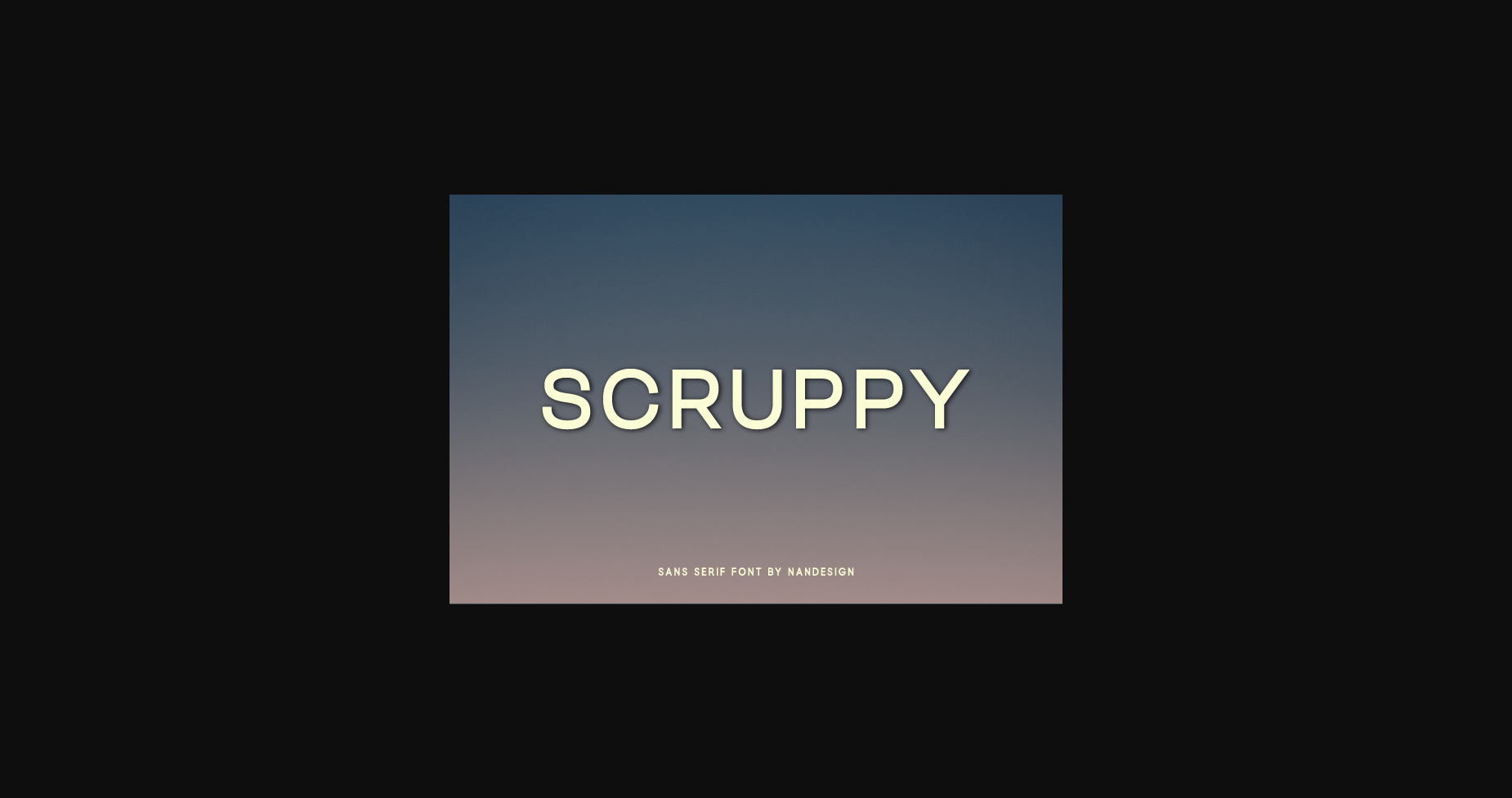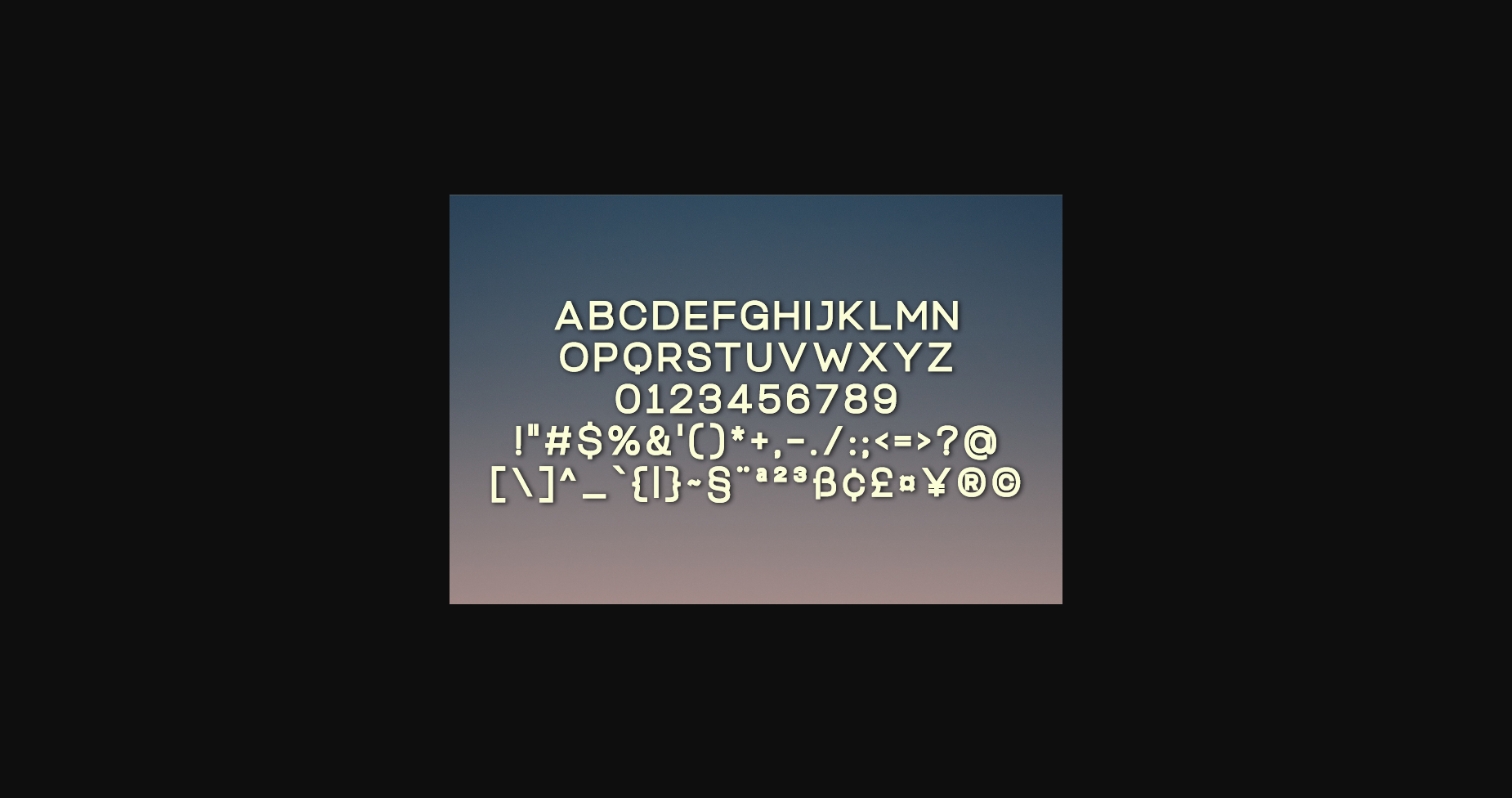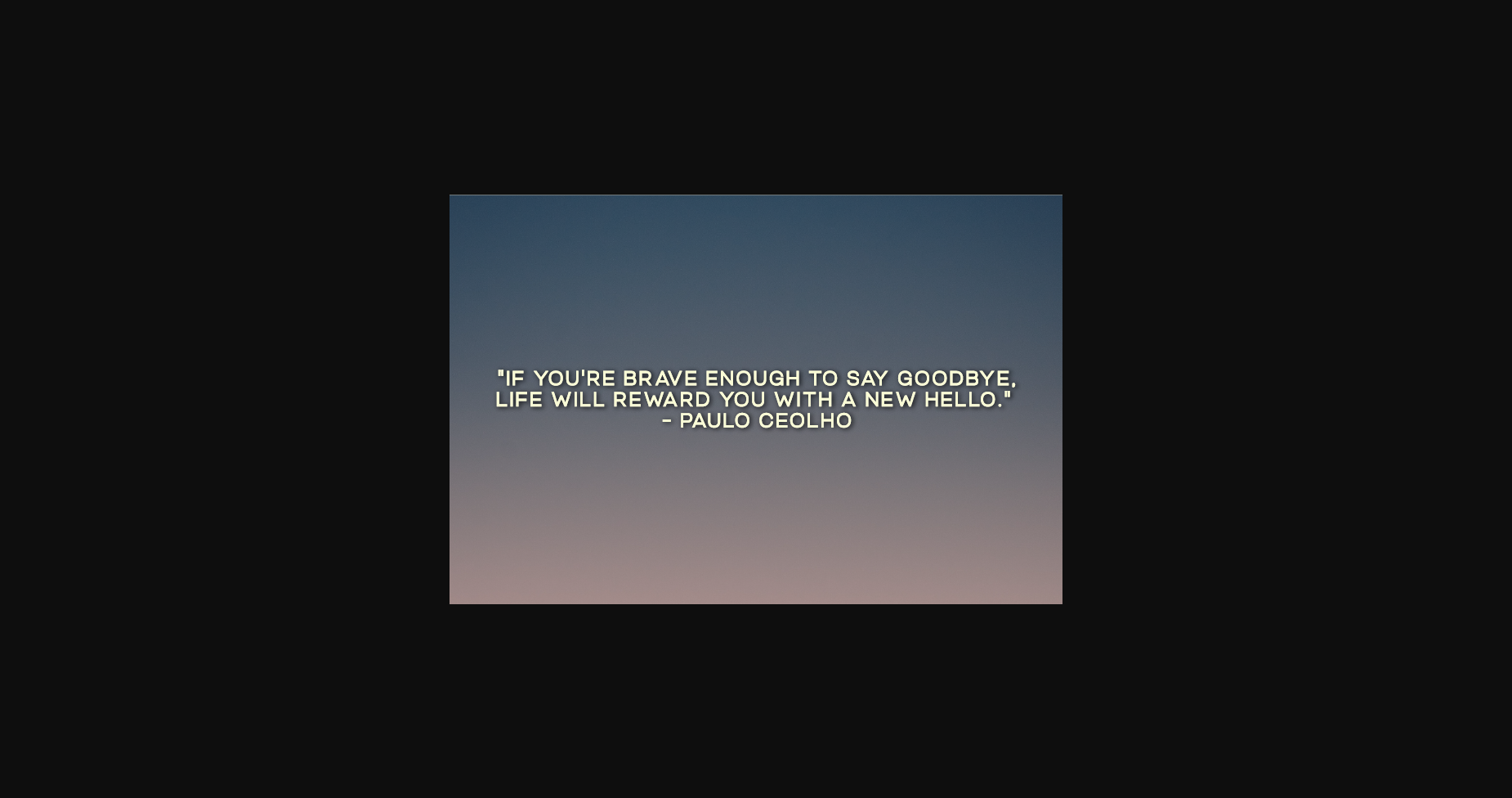
About Scruppy Font
Scruppy is a clean, slim and simple sans serif font.
It is perfect for product packaging, branding project, magazine covers, social media, wedding, or just used to express words above the background.